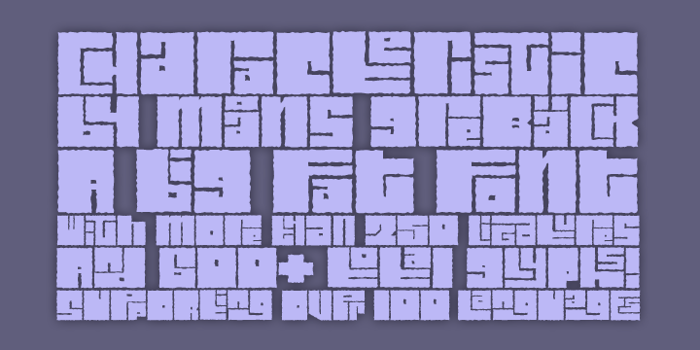
Characteristic Font
This is a ligature font: View the image to understand how it forms in ligature supporting software.
The OT work on this is absolutely fabulous, with the automatic ligatures. Very impressive.
This is very impressive! I marvel at how many different versions of the letters you worked on. Thank you for sharing!
Excellent, very creative!